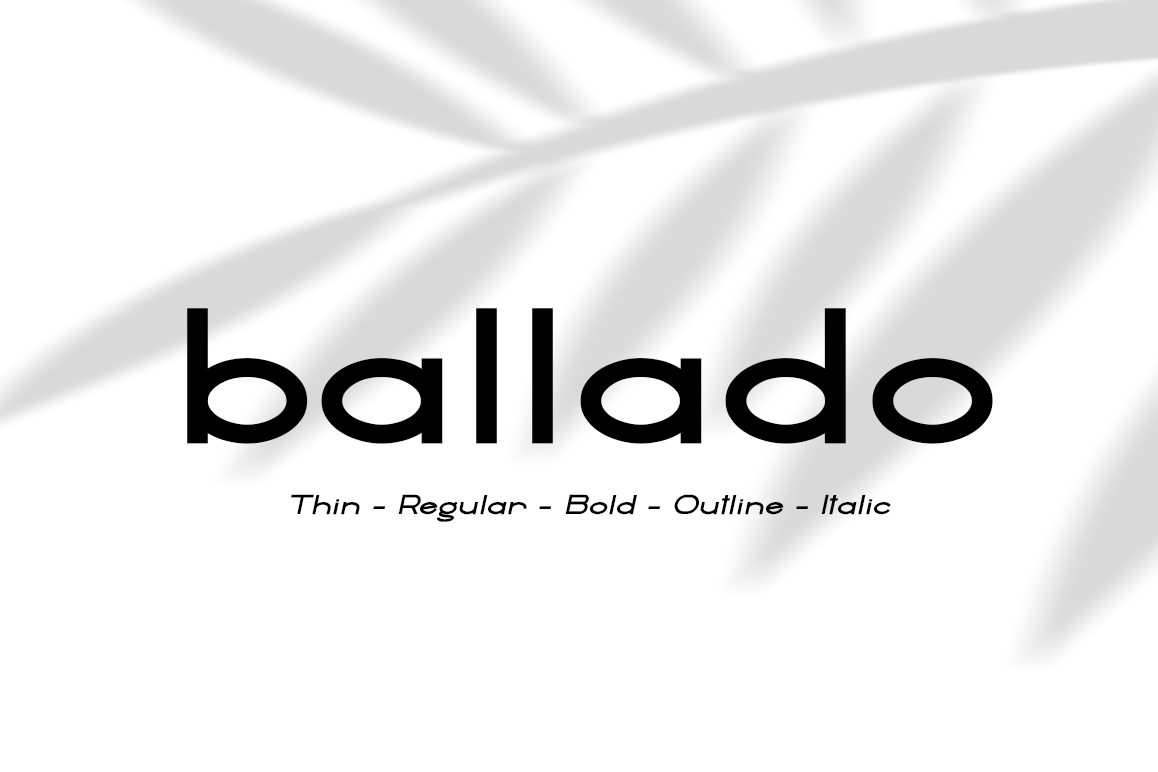
Ballado // Geometric Sans Family
Just introduce Ballado is a versatile font family. Strong capitals and a smooth, open lowercase are effective in a variety of applications.
The geometric, near-monoline construction lends a classic durability, tempered by softened edges and vibrant shapes.
Version Including : Thin, Regular, Bold and Outline also in slant (Italic) along with a richer and fuller Heavy weight.
Every letter has been redrawn and refined, with improved kerning and expanded language support.Four weights and Slant (Italic)